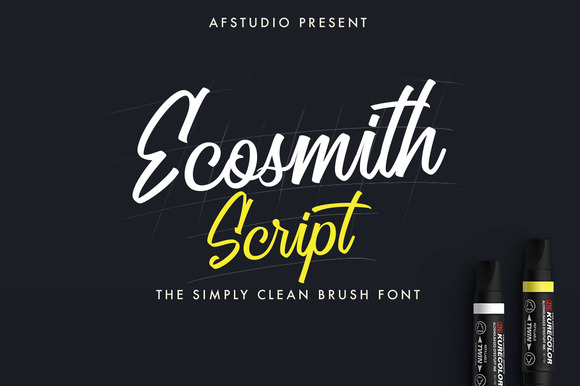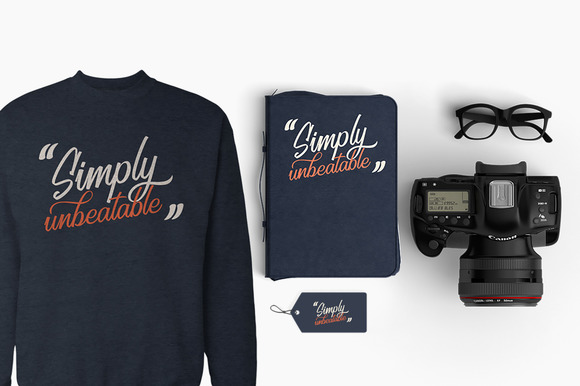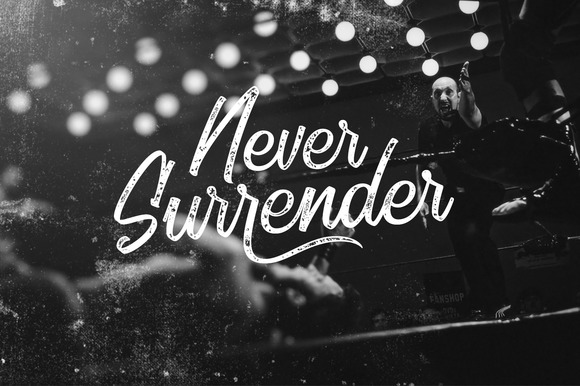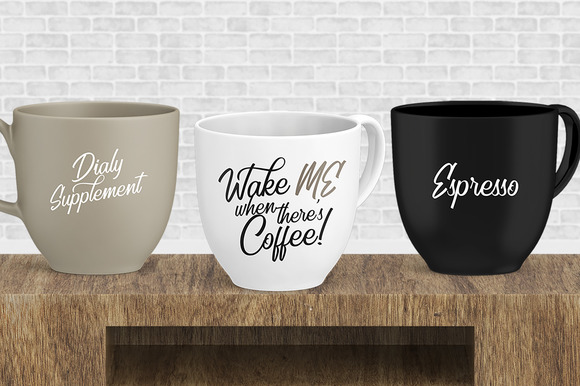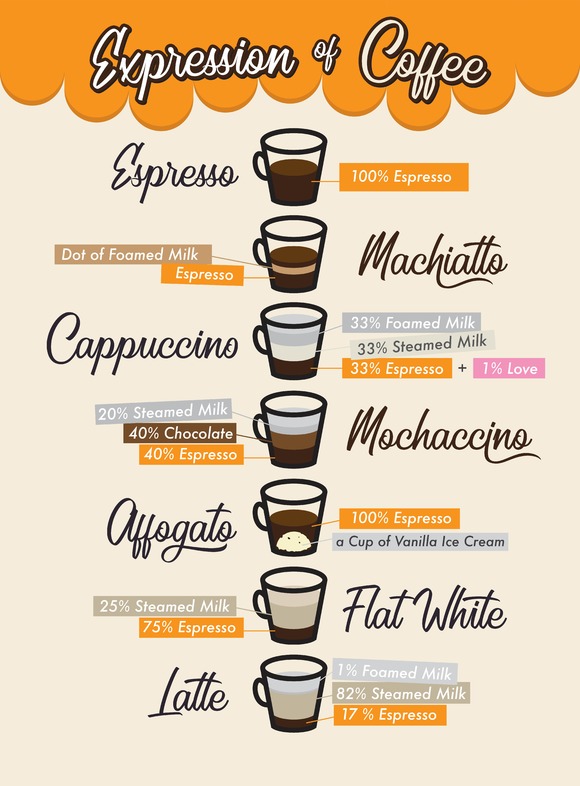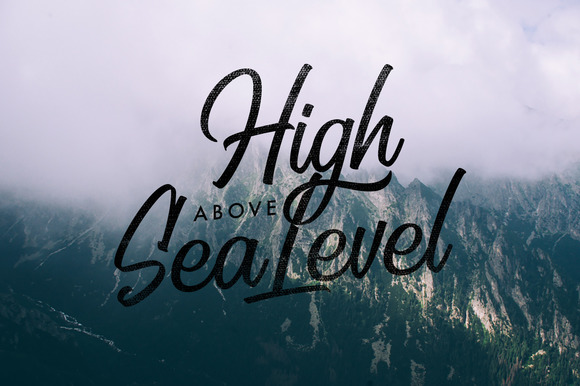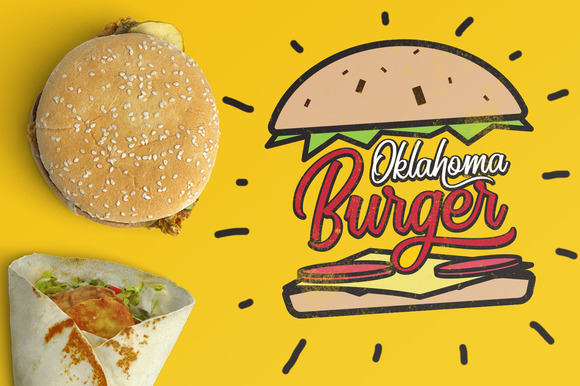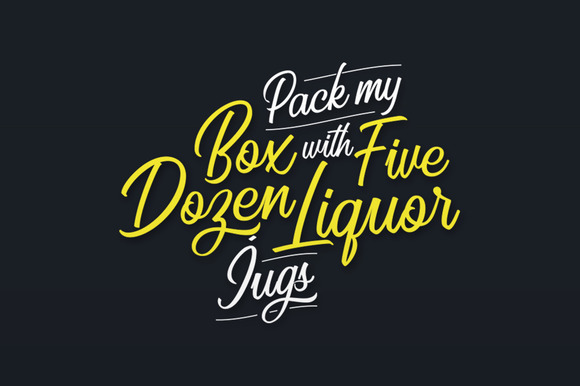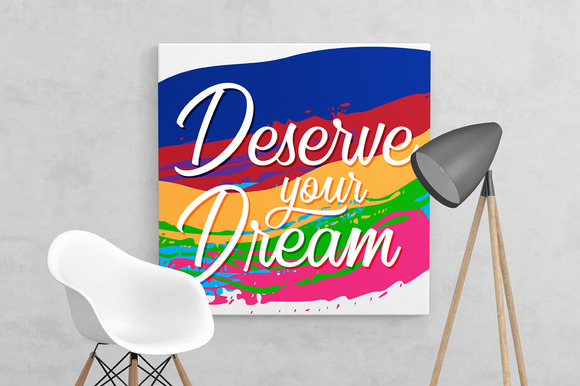
Ecosmith
Ecosmith Script Font
ModernScript with sense of calligraphy style comes with clean style finishing. Created with 45º brush to keep the stroke consistent. some of the characters have the alternative characters especially on the ascender, descender and also the Uppercase. This fonts are great for Logotypes, Posters, Digital Lettering Arts, Clean design, Branding Design, Sign, etc.